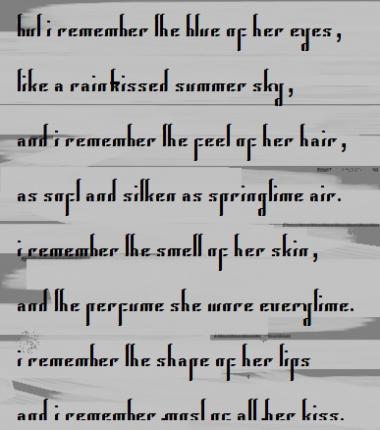
In her memory
creates a sweet yet sad visual memory
Very very nice work! I love it!
This is cool, but I think you should move the 'f' up. My eyes read it as a 'p'.